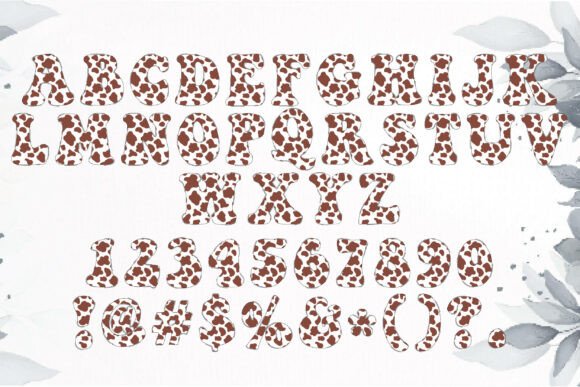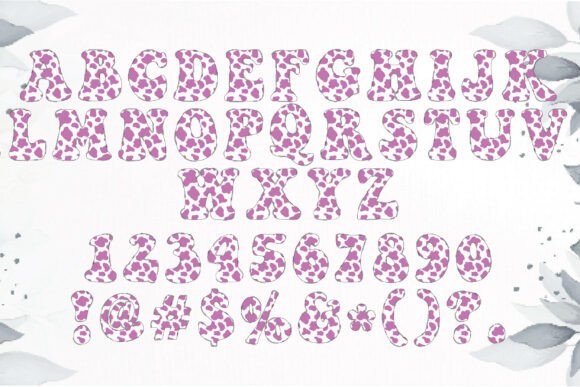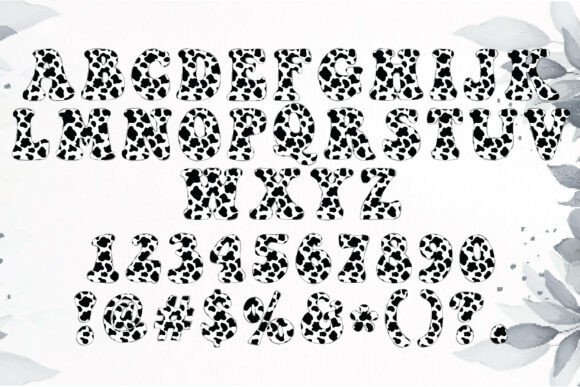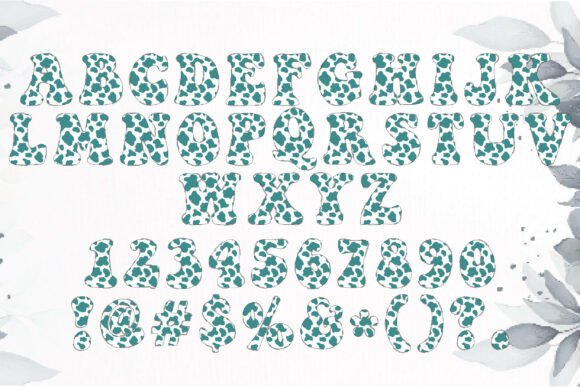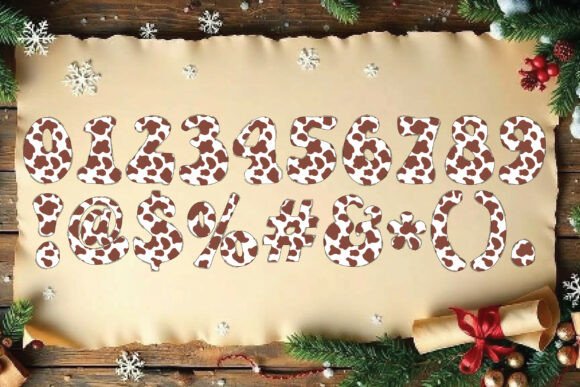
Cow Font: Add a Playful Farmyard Touch to Your Designs with Cow Print Alphabets & Letters Pack
Are you looking for a fun and creative way to add a farmyard touch to your designs? Look no further than the Cow Font, a playful Cow Print Font Bundle that’s perfect for rustic-themed projects. Inspired by classic black-and-white cow patterns, barnyard aesthetics, and cute farm animals, this font is sure to delight designers and crafters of all ages.
What is Cow Font?
The Cow Font is a unique and eye-catching font that features bold cow print-style lettering with a soft and playful look. This alphabet is great for both kids’ designs and trendy farmhouse crafts, making it a versatile addition to any designer’s toolkit. With its rustic charm and whimsical appeal, the Cow Font is perfect for a wide range of creative projects.
The Cow Font is ideal for a variety of design projects, including:
- Farm-themed t-shirt designs: Add a playful touch to your farm-themed t-shirts with the Cow Font’s bold and colorful lettering.
- Kids craft projects: The Cow Font’s soft and playful look makes it perfect for kids’ craft projects, such as coloring pages, stickers, and printable art.
- Barnyard birthday invitations: Create adorable barnyard-themed birthday invitations with the Cow Font’s cow print-style lettering.
- Sublimation designs: The Cow Font is perfect for sublimation designs, such as mugs, tumblers, and water bottles.
- Scrapbooking and planners: Add a rustic touch to your scrapbooking and planners with the Cow Font’s bold and colorful lettering.
- Stickers and printable art: Create fun and playful stickers and printable art with the Cow Font’s cow print-style lettering.
- Classroom decorations: The Cow Font is perfect for classroom decorations, such as bulletin boards, posters, and charts.
- Social media graphics: Add a playful touch to your social media graphics with the Cow Font’s bold and colorful lettering.
- DIY personalized names: Create personalized names with the Cow Font’s cow print-style lettering for a unique and special touch.
- Rustic farmhouse branding: The Cow Font is perfect for rustic farmhouse branding, such as logos, labels, and packaging.
Why Choose the Cow Font?
- Unique and eye-catching design: The Cow Font’s cow print-style lettering is sure to stand out in any design.
- Versatile: The Cow Font is perfect for a wide range of design projects, from kids’ crafts to rustic farmhouse branding.
If you’re looking for a fun and creative way to add a farmyard touch to your designs, the Cow Font is the perfect choice. With its bold cow print-style lettering and soft and playful look, this font is sure to delight designers and crafters of all ages. Whether you’re working on farm-themed t-shirt designs, kids’ craft projects, or rustic farmhouse branding, the Cow Font is a versatile and eye-catching addition to any designer’s toolkit.